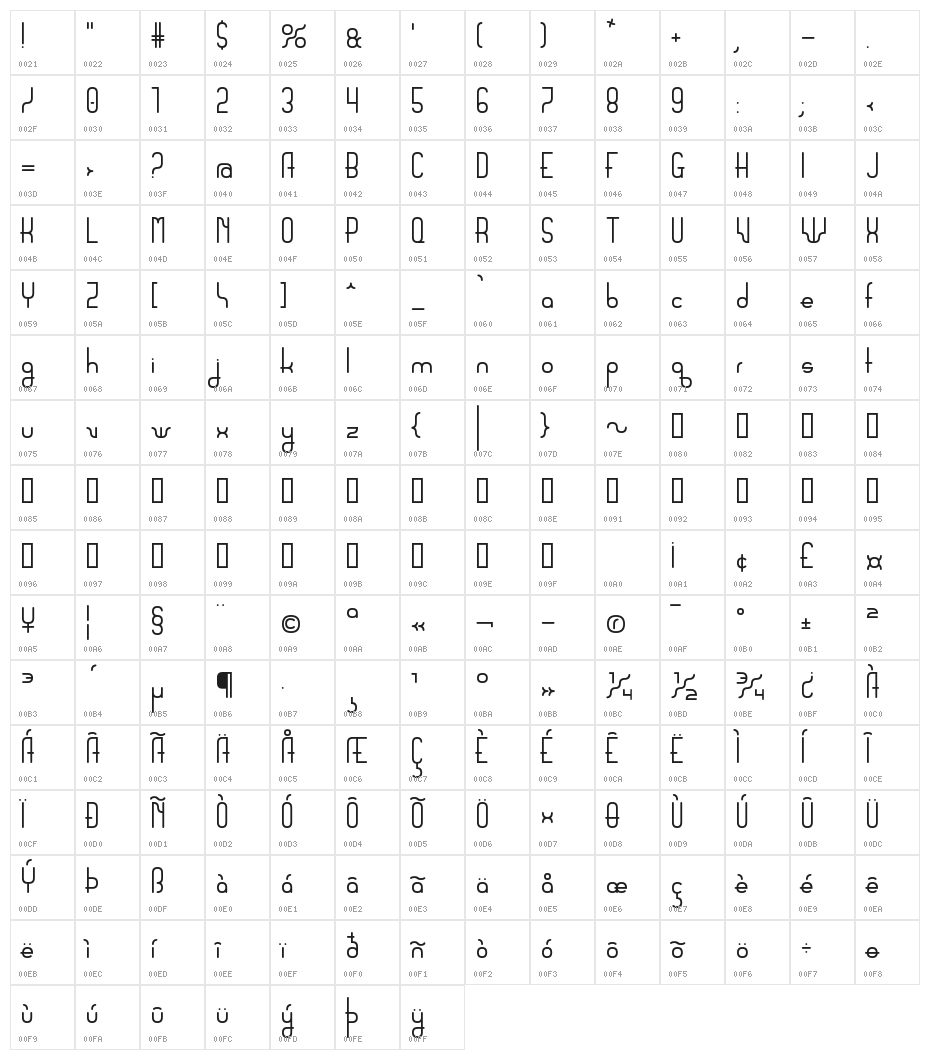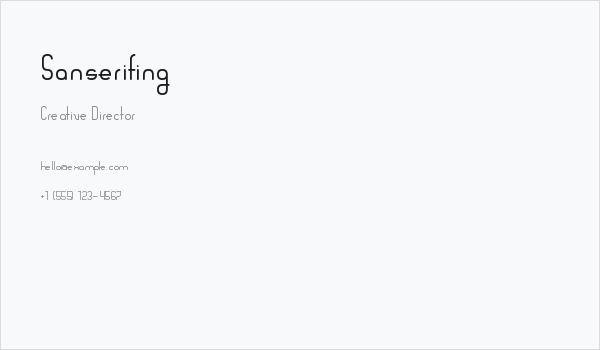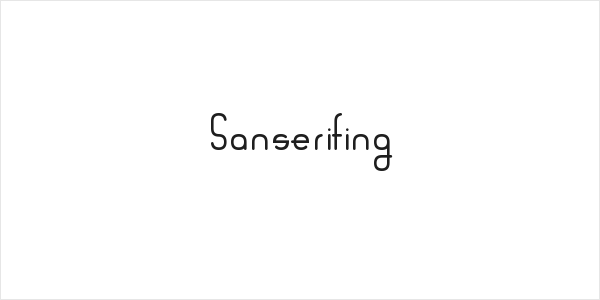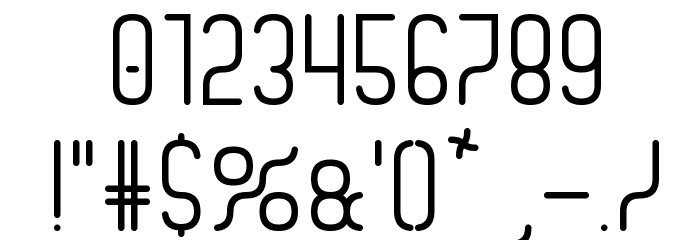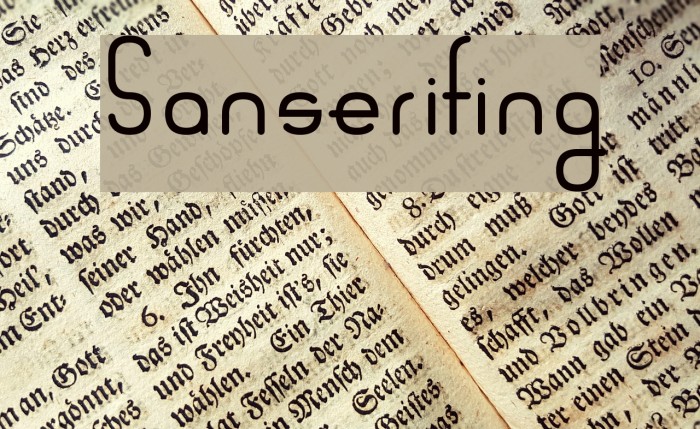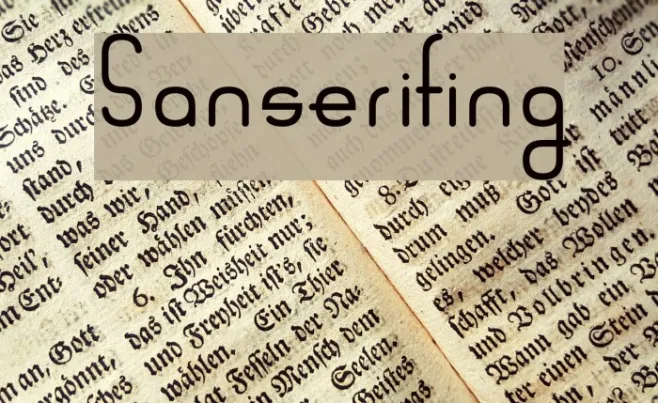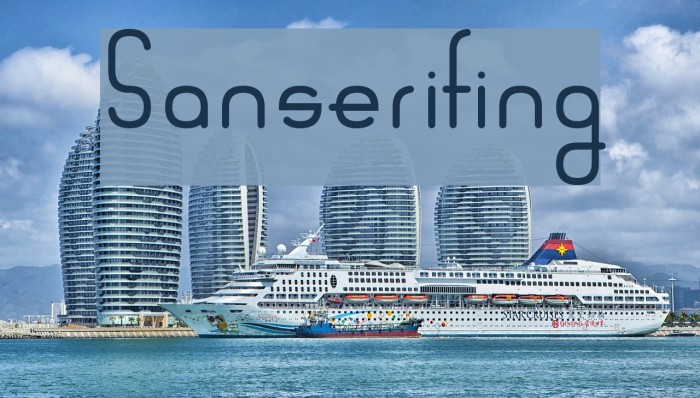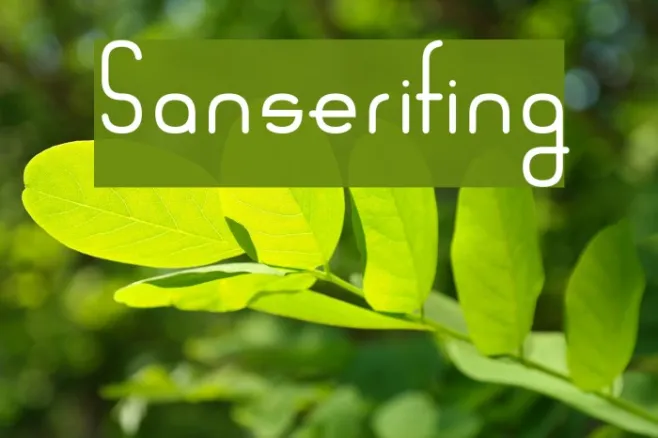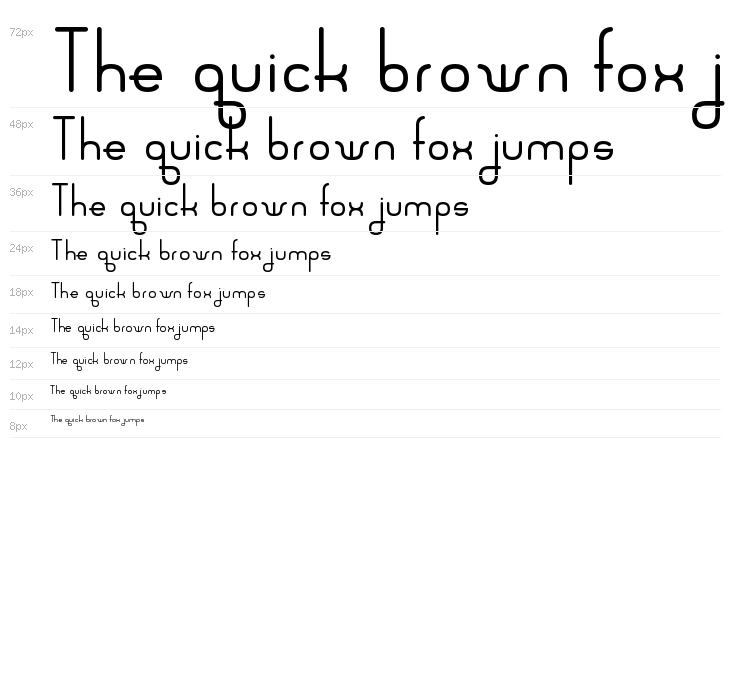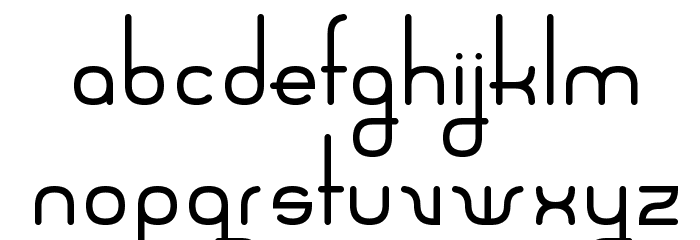
Sanserifing Font
Sanserifing Description
This font features a unique, modern design with a geometric and minimalist aesthetic. The characters are constructed with consistent stroke widths, giving it a clean and uniform appearance. The uppercase letters are tall and narrow, while the lowercase letters maintain a similar height, creating a cohesive look. The numerals are distinct and easily readable, matching the overall style of the alphabet. Special characters are designed with the same attention to detail, ensuring they blend seamlessly with the rest of the font. This typeface is ideal for projects that require a contemporary and sleek look.
| Use Case | Headlines, Logos, Digital Interfaces |
| Proposed Projects | Ideal for branding, digital interfaces, modern advertising, and editorial design. |